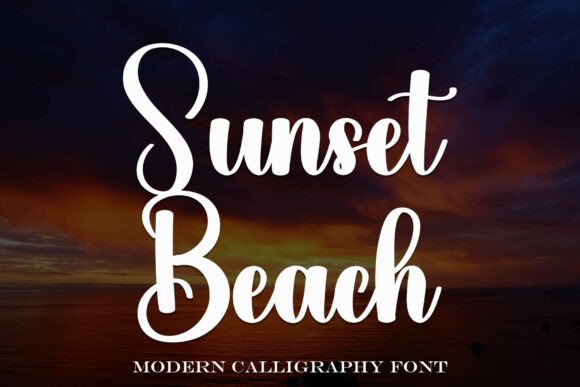
Sunsetbeach
Finding the right design elements can be challenging, but Sunsetbeach offers an exceptional collection that elevates your work instantly.
Whether you are creating POD (Print on Demand) products, wedding invitations, or social media graphics, Sunsetbeach is an ideal fit.